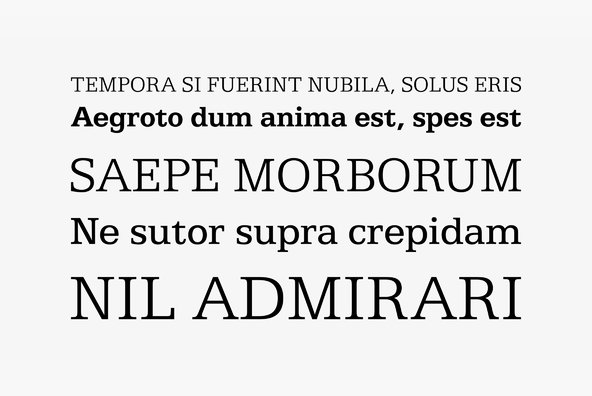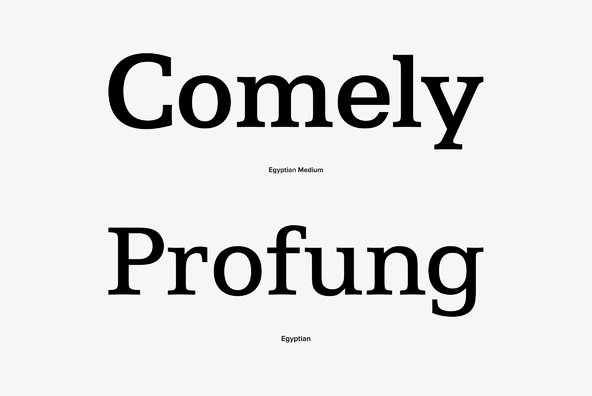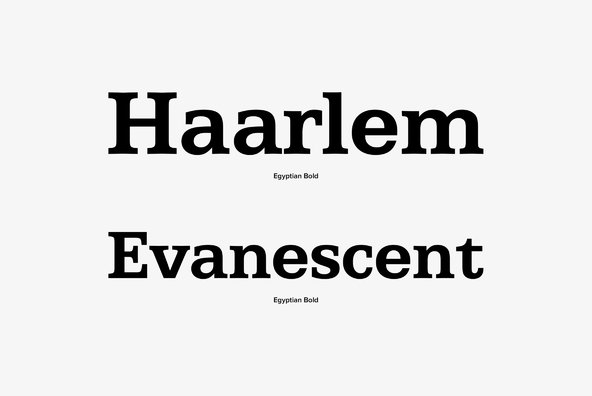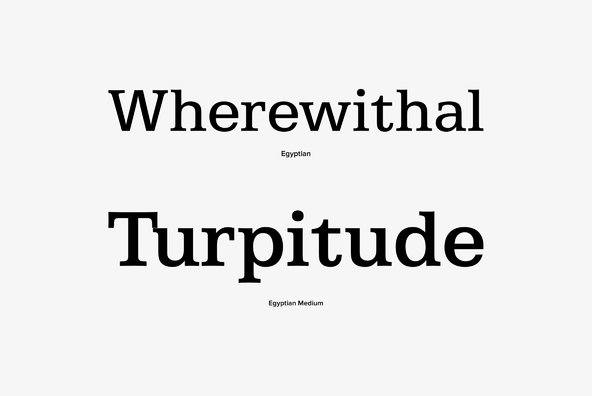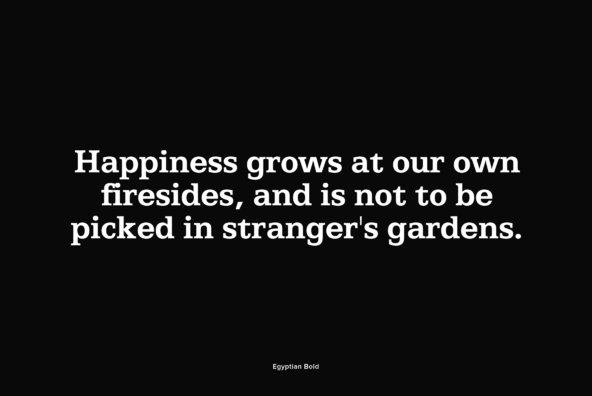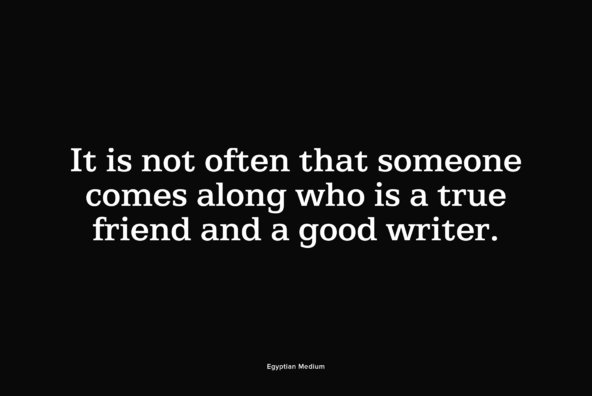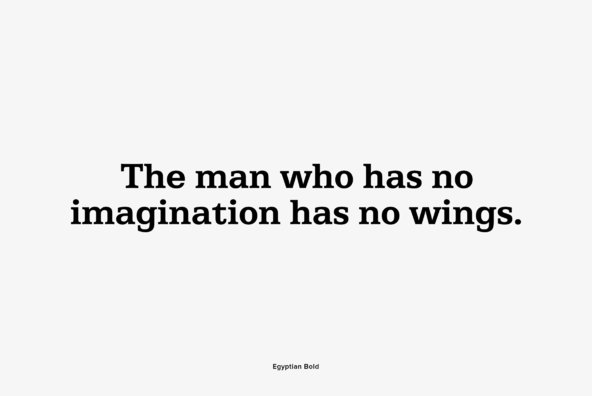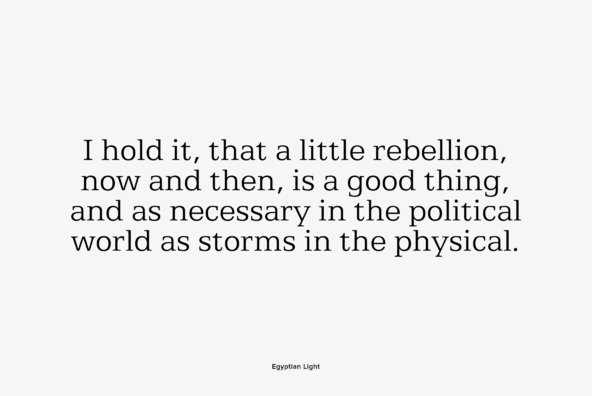
Designed by André Gürtler in 1966, Egyptian 505 is a versatile slab-serif release by URW. Contains language support for West, East, Turkish, Baltic, and Romanian.